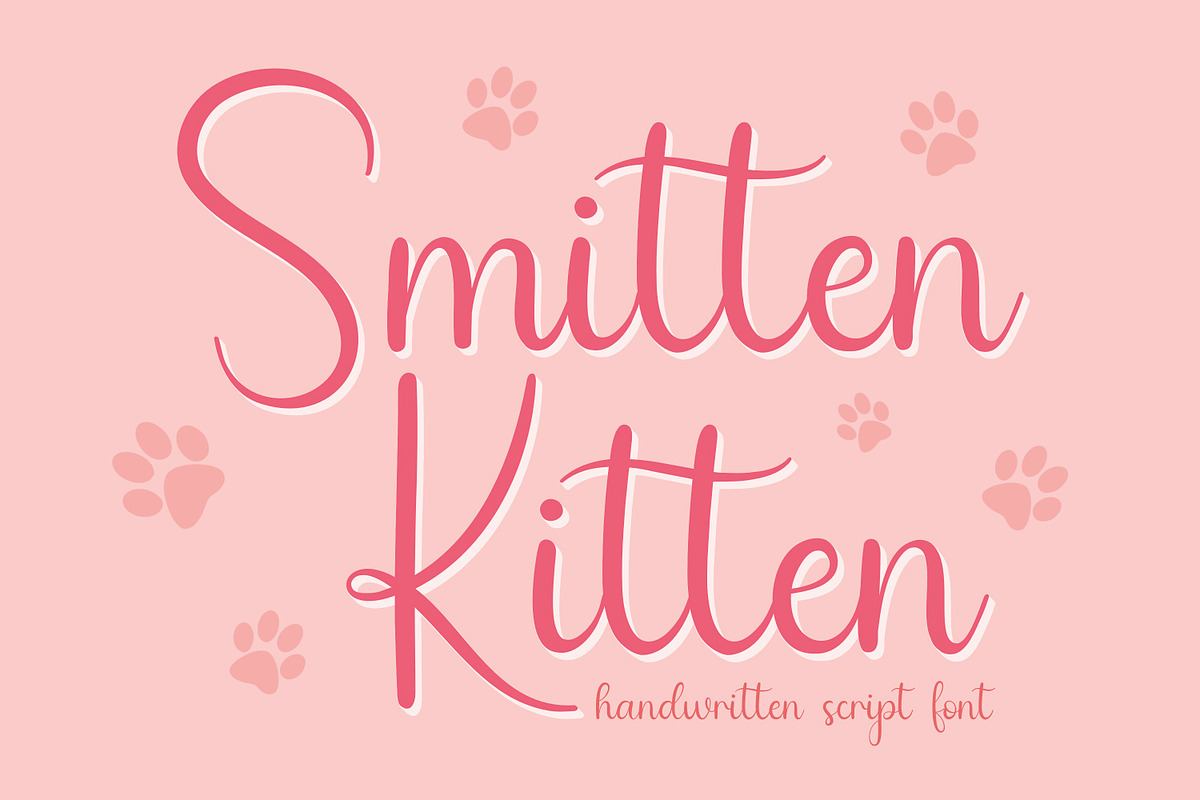
Smitten Kitten Handwritten Script Free Download
Smitten Kitten Handwritten Script Font Free Download is a playful, charming script font that adds a sweet, personal touch to any design. Please note: you must purchase this font for commercial use, but you can test it through a free download. With its flowing strokes and casual elegance, Smitten Kitten is perfect for greeting cards, social media graphics, branding, invitations, and more.
Its handwritten style feels warm and authentic, making your designs feel approachable and heartfelt. Whether you're crafting a personal message or building a creative brand identity, Smitten Kitten Handwritten Script Font Free Download will make your text stand out with character and charm. It’s compatible with major design platforms like Adobe Photoshop, Illustrator, and Canva, ensuring easy integration into any workflow. Download it today to explore the whimsical beauty of this lovely script and add a touch of personality to your next creative project!